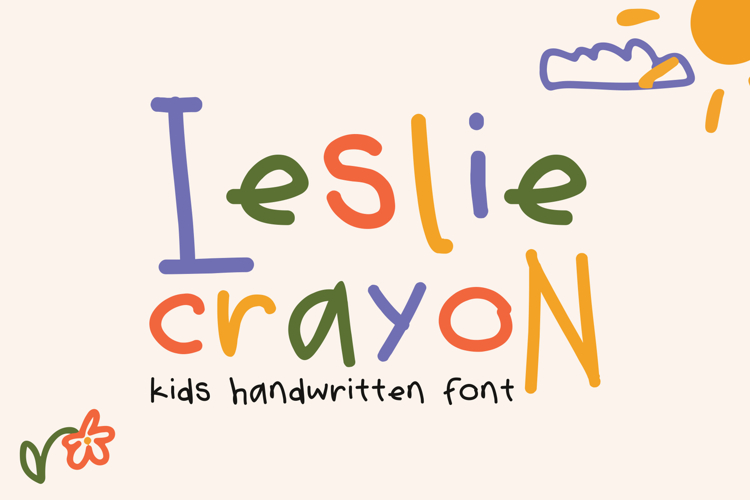
Leslie Crayon | Natural Kids Handwritten Font
Leslie Crayon is a natural kids handwritten font inspired by the expressive strokes of crayon drawings and playful writing styles. Designed to capture the charm of childlike creativity, this typeface brings warmth, friendliness, and an organic visual feel into any design. Its irregular shapes and hand-drawn character create an authentic look that feels lively and engaging.
This font comes with two styles: Regular and Bold. The Regular style features lighter strokes that reflect a soft and natural handwritten appearance, making it suitable for relaxed and playful layouts. The Bold style adds stronger stroke weight, creating higher visual impact while maintaining the same friendly and artistic character. These two styles allow designers to create hierarchy and emphasis within their designs while keeping a consistent look.
Leslie Crayon includes uppercase and lowercase characters, giving flexibility for both structured and expressive typography. The letterforms are intentionally uneven to mimic real handwriting, adding a natural rhythm and dynamic flow to the text. Despite its organic construction, the font remains readable, especially when used for headlines and short content.
Numbers and punctuation are included and designed to match the overall crayon aesthetic. This ensures visual consistency across all text elements. With multilingual support, Leslie Crayon can be used across different languages, making it suitable for a wide range of creative and professional applications.
This font is ideal for projects that require a friendly and playful tone. It works especially well for children’s books, educational materials, school projects, packaging, greeting cards, invitations, posters, and social media content. Its natural handwritten style helps create a sense of creativity and warmth that connects easily with audiences.
In branding, Leslie Crayon helps establish a welcoming and approachable identity. It is suitable for kids brands, educational platforms, creative businesses, and lifestyle products that aim to communicate fun and creativity. The font adds emotional value and makes visual communication feel more engaging.
Leslie Crayon also offers flexibility in design combinations. It pairs well with simple sans-serif fonts to create balance, or with decorative elements for more playful compositions. Designers can experiment with colors, textures, and layering to enhance the crayon effect and build unique visuals.
From a technical perspective, the font is optimized for both print and digital use. Its clean vector structure ensures consistent results across different sizes and formats. Whether used in large-scale designs or smaller elements, it maintains clarity and visual appeal.
Another strength of Leslie Crayon is its adaptability. It can be used as a main headline font or as a complementary element within a broader typography system. Its distinct character allows it to stand out while still working harmoniously with other design elements.
Overall, Leslie Crayon is a versatile and expressive handwritten font that brings creativity and warmth into design. With its playful style and flexible features, it is a valuable addition for designers looking to create engaging and visually appealing projects.